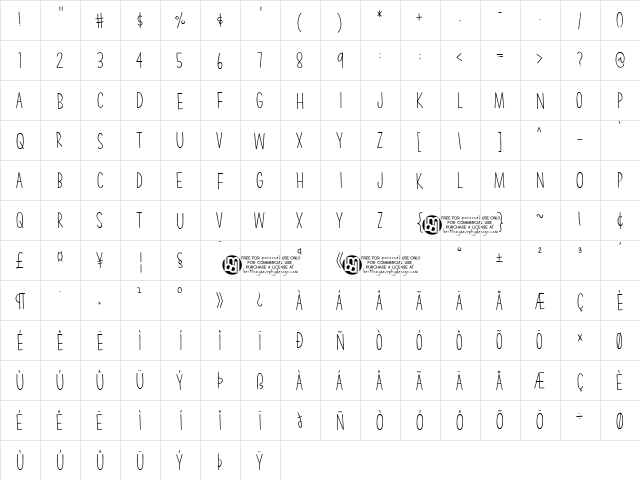
Little Miracles Regular
| Foundry | Brittney Murphy |
| Designer | Brittney Murphy |
Design Context for Little Miracles Typeface
Little Miracles offers clean, dependable letterforms without strong stylistic allegiance, making it a practical choice for designers who need flexibility.